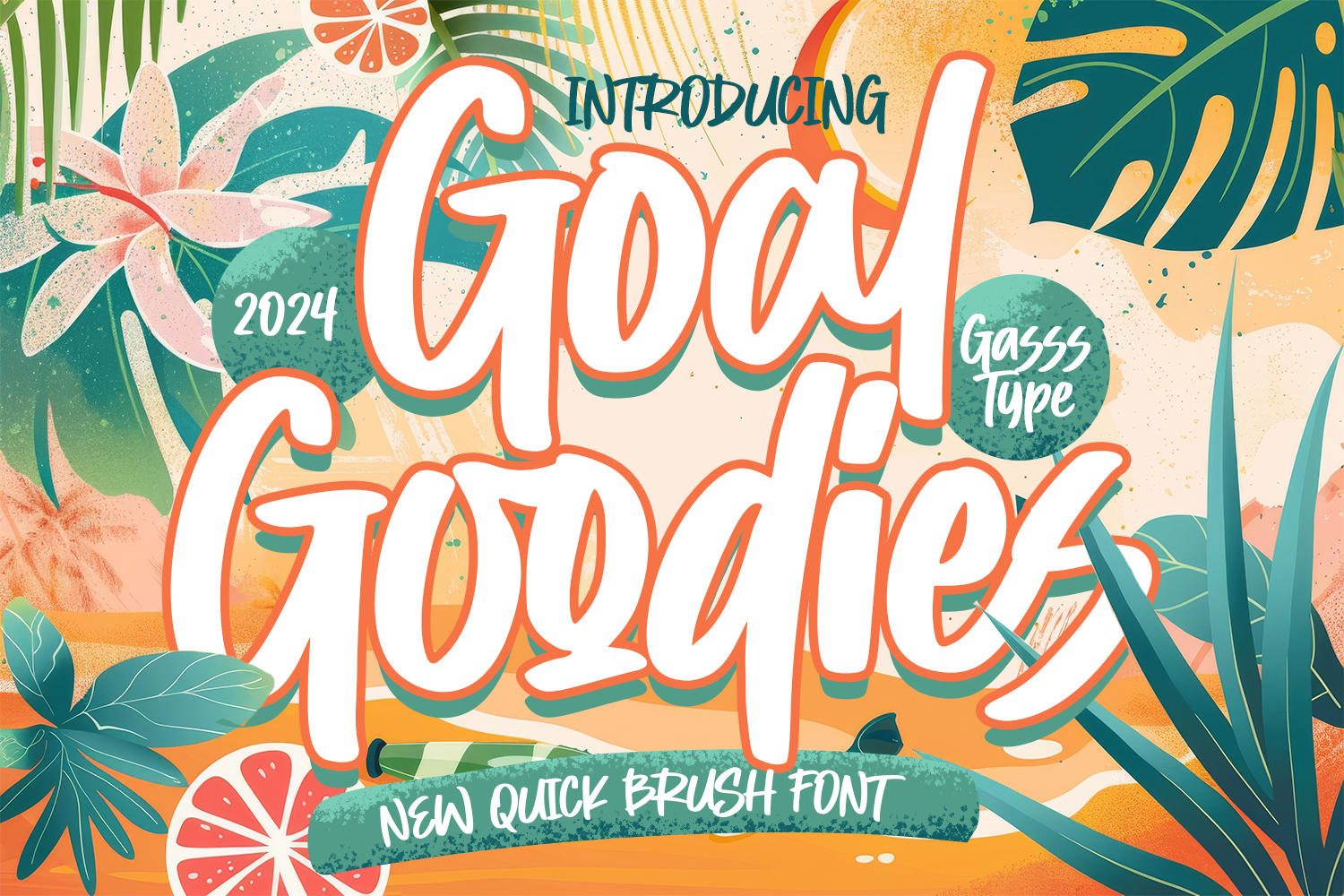
Goal Goodies - New Quick Brush Font
GOAL GOODIES is a vibrant quick-brush typeface crafted with smooth strokes, playful curves, and a lively handwrit ten personality. Designed to bring a cheerful, fresh, and energetic atmosphere, this font embodies a fun artistic spirit—perfect for designs that need positivity, warmth, and an eye-catching casual style.
Its rounded brush movements, soft texture nuances, and dynamic flow create a friendly handcrafted look that instantly feels expressive and approachable. Goal Goodies blends modern brush aesthetics with bright readability, making it highly effective for joyful branding and bold display compositions.